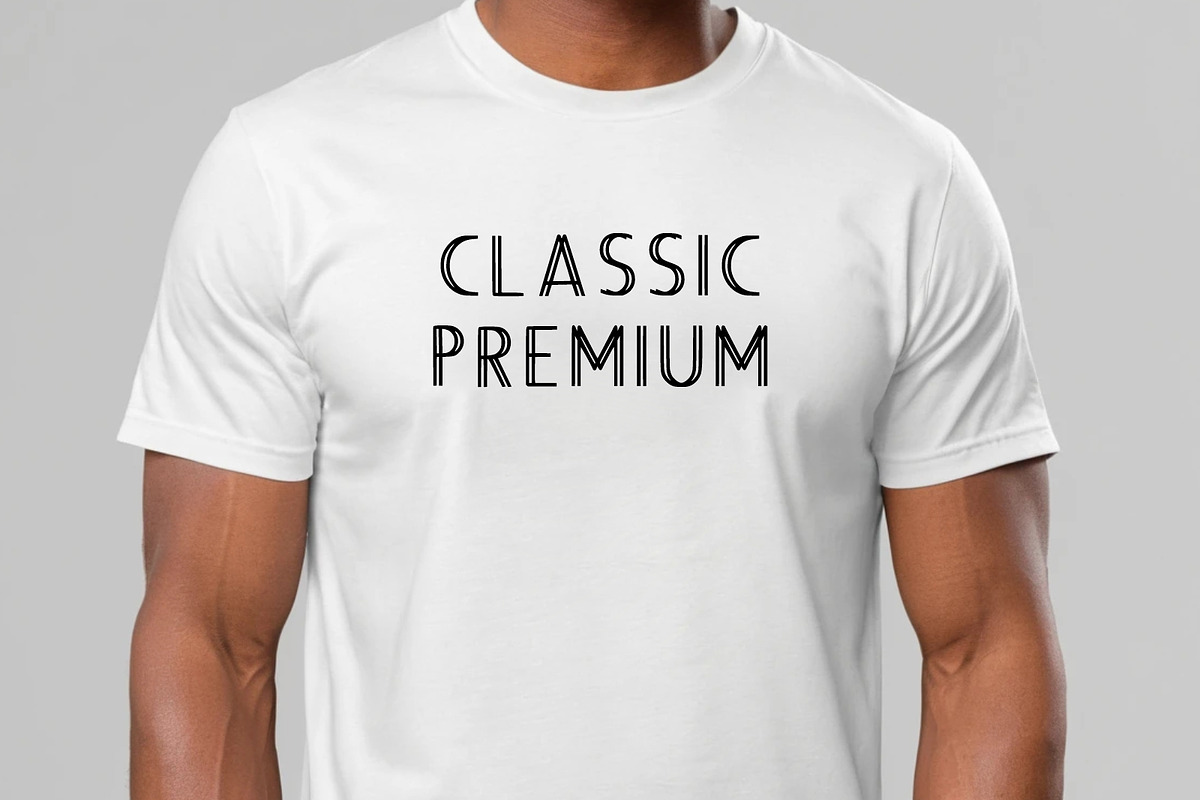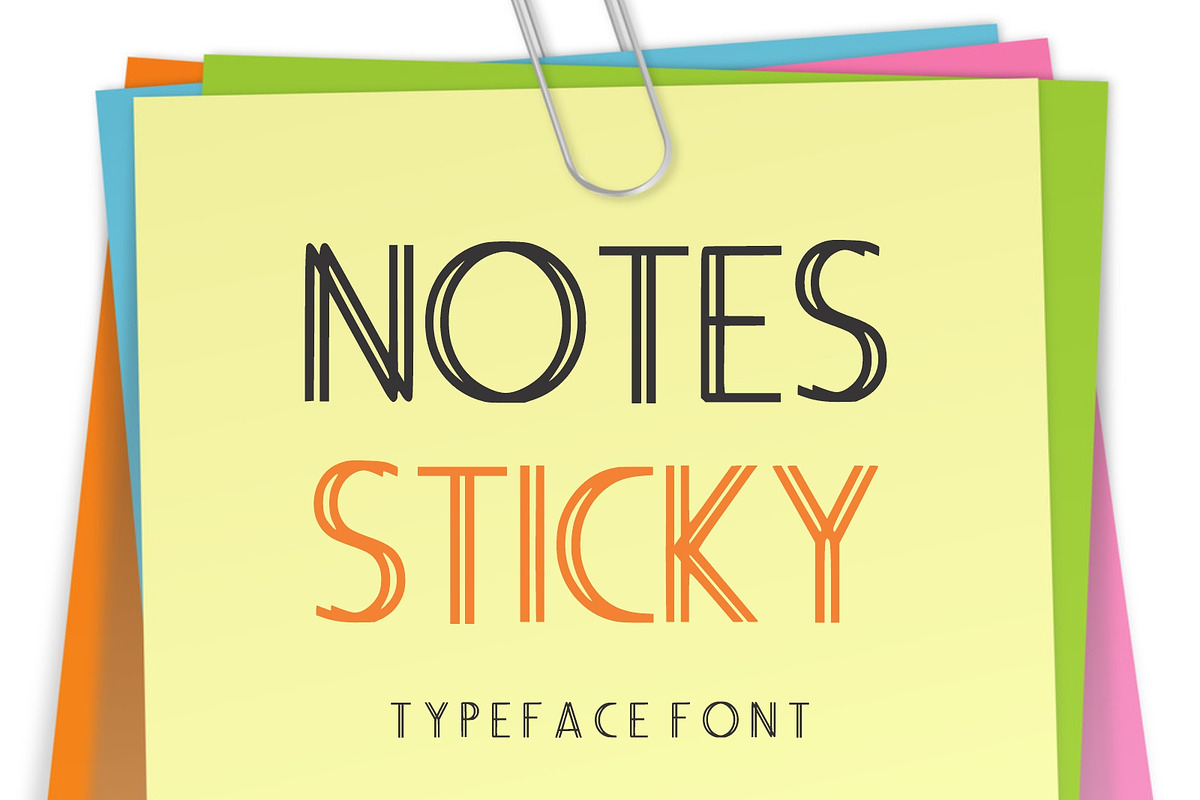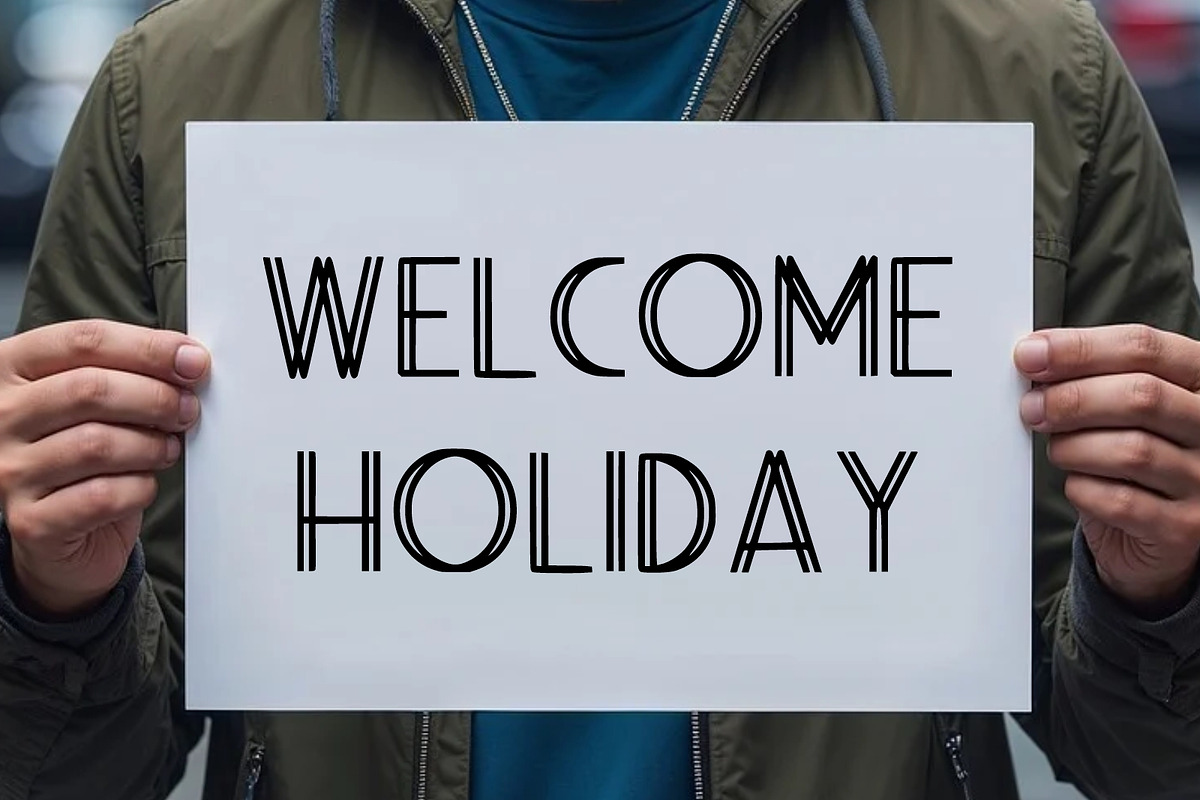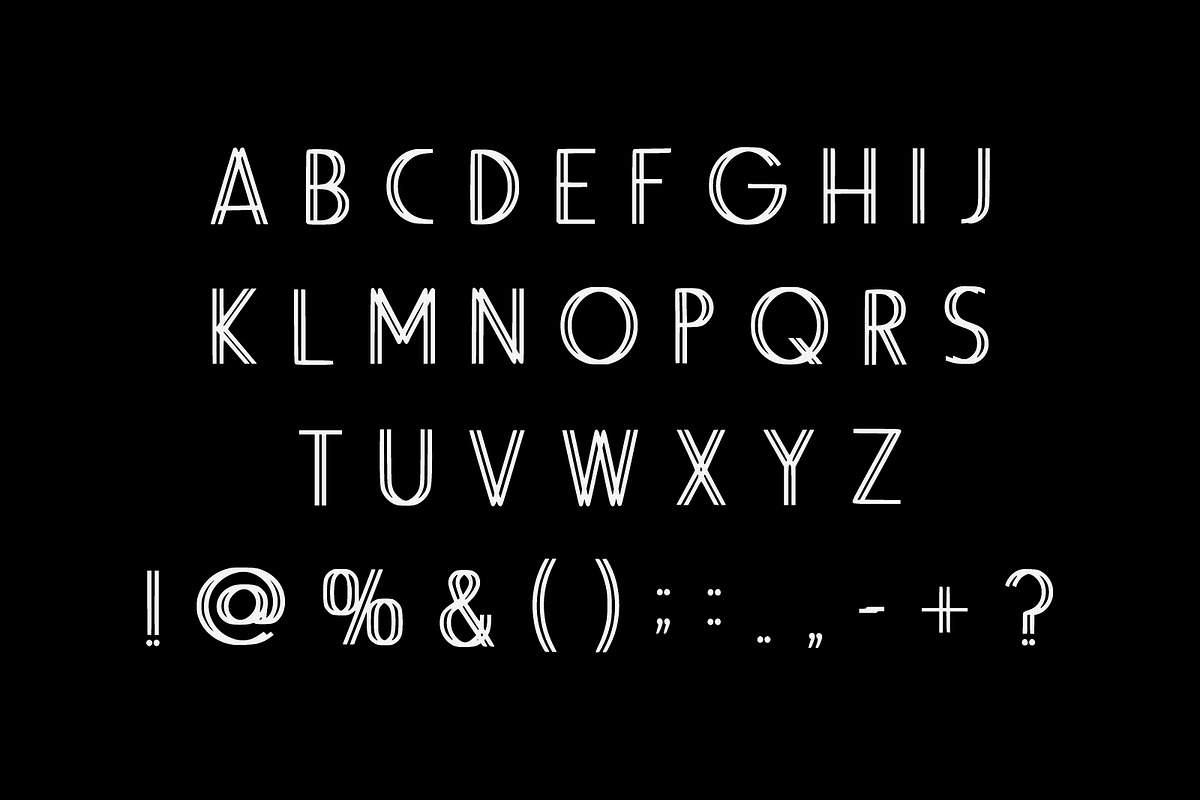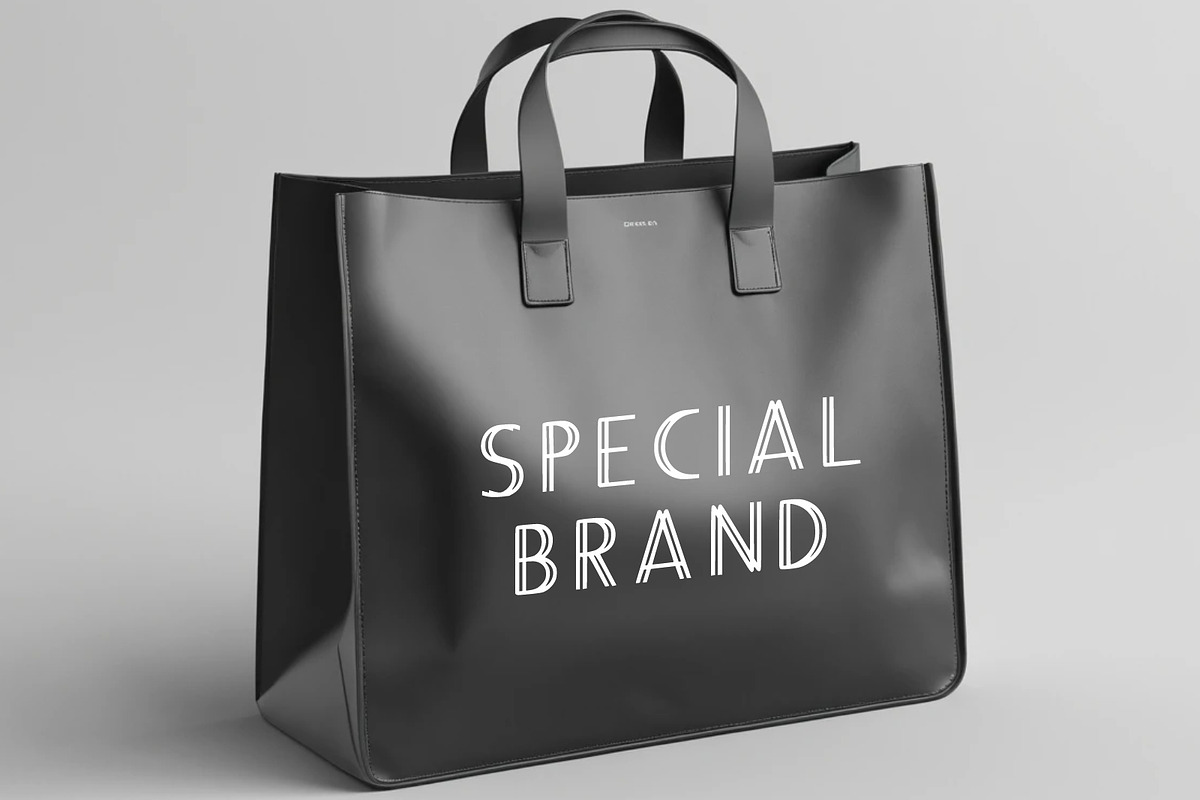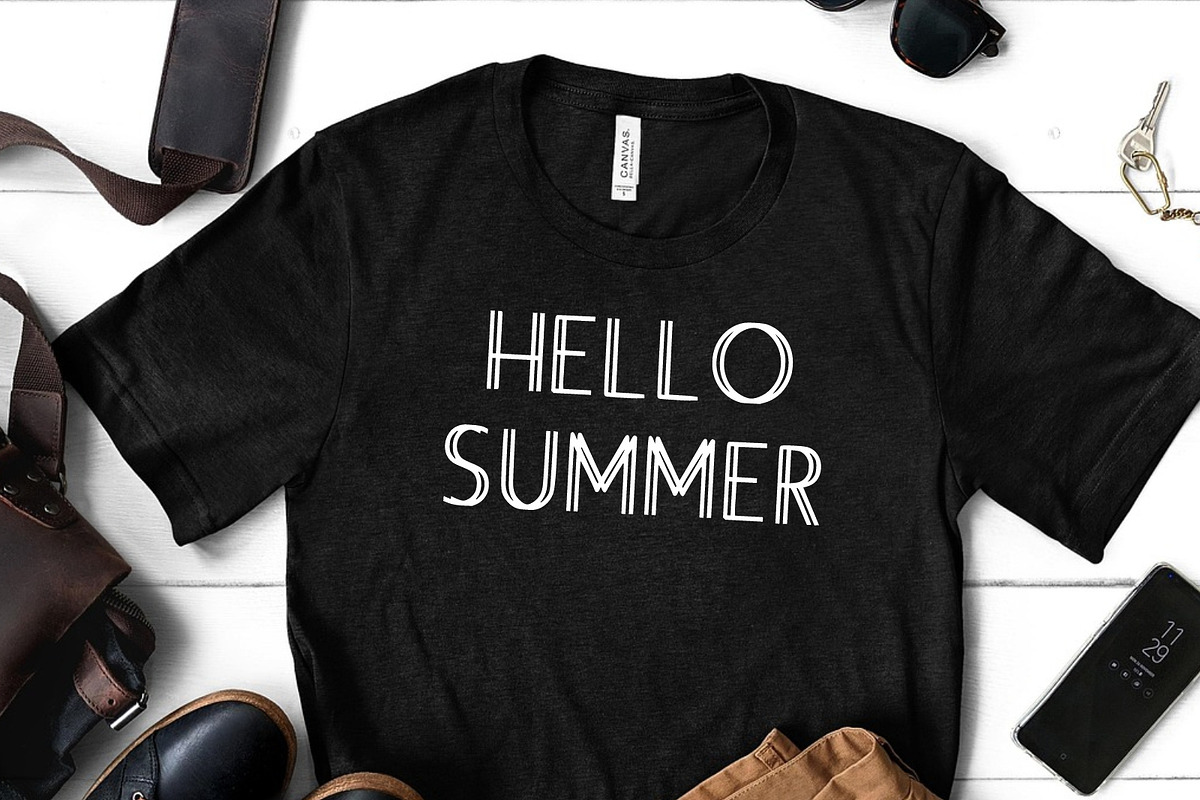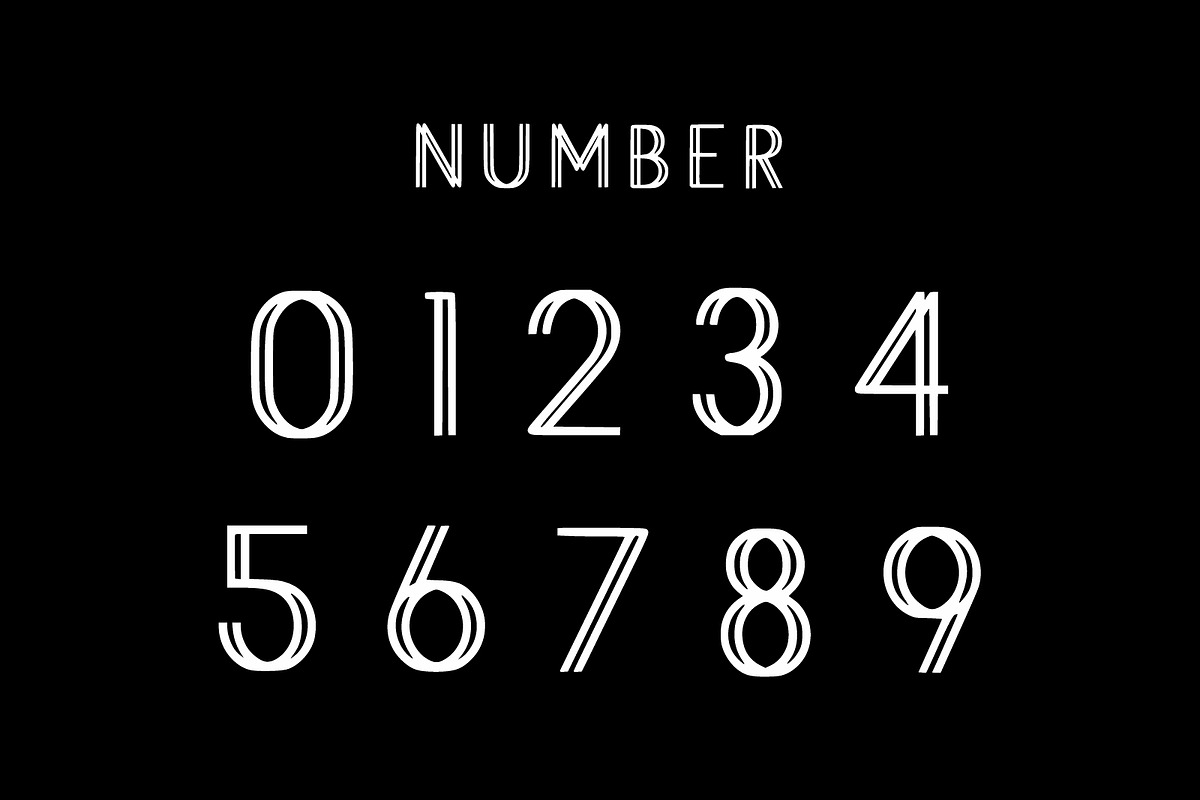
Notes Sticky
Notes Sticky an uppercase font, simple, elegant, easy-to-read display font that conveys impeccable friendliness. Whether you’re using it for crafts, digital design, presentations, or greeting cards, this font has the potential to become your favorite go-to font, no matter the occasion!